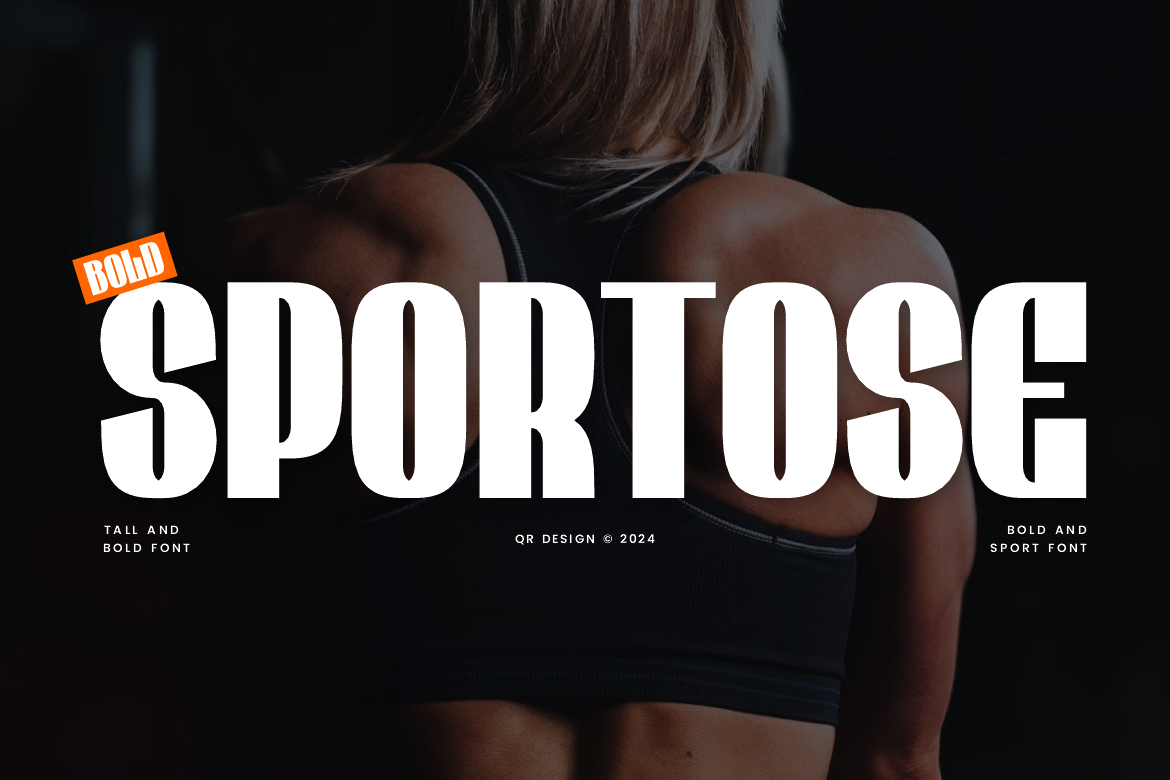
Sportose - Gym Sport & Tall Font
Sportose Font is a bold and authentic display font. The font is suitable for any branding project like poster, logo, sport, and many more. Outstanding in a wide range of contexts.